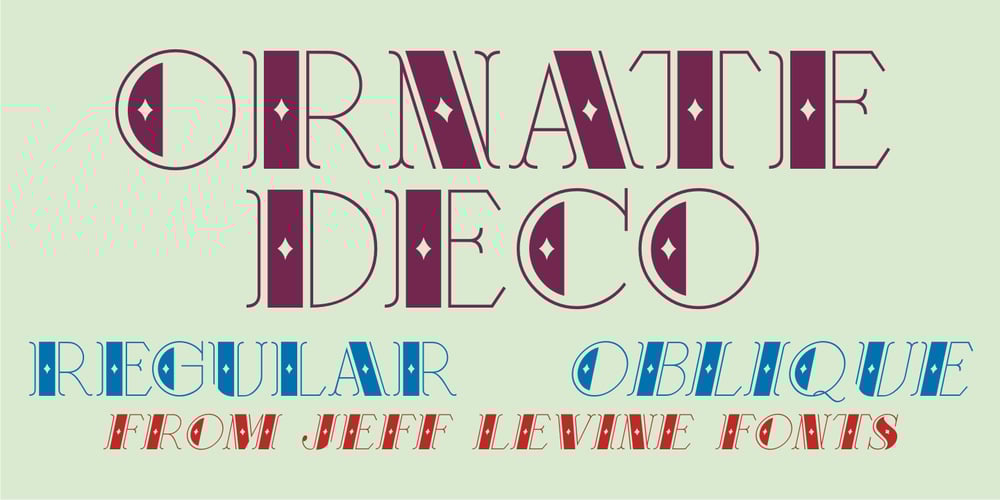
Ornate Deco Font Family was designed by Jeff Levine and published by Jeff Levine. Ornate Deco contains 2 styles and family package options. Ornate Deco JNL is a thick-and-thin Art Deco serif typeface with diamond shapes inside the thicker parts of the characters. It is based on an alphabet example found in the 1949 French lettering book “Album de Lettres Arti”, and is available in both regular and oblique versions.